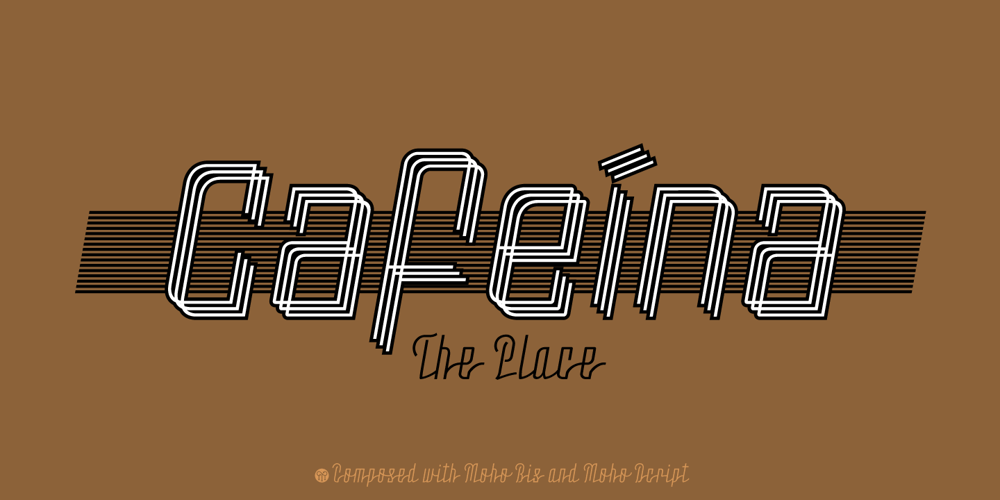
MohoBis Pro Font Family was designed by John Moore and published by John Moore Type Foundry. MohoBis Pro contains 2 styles and family package options. MohoBis is a fancy font based on the multiplication of a source in many strokes way to create a texture called kinetic. This can mean substantial savings in printing ink. Parallel serves to create unusual headlines and prominent texts that provides an attractive modern typeface, ideal for packaging, editorial design and logos.